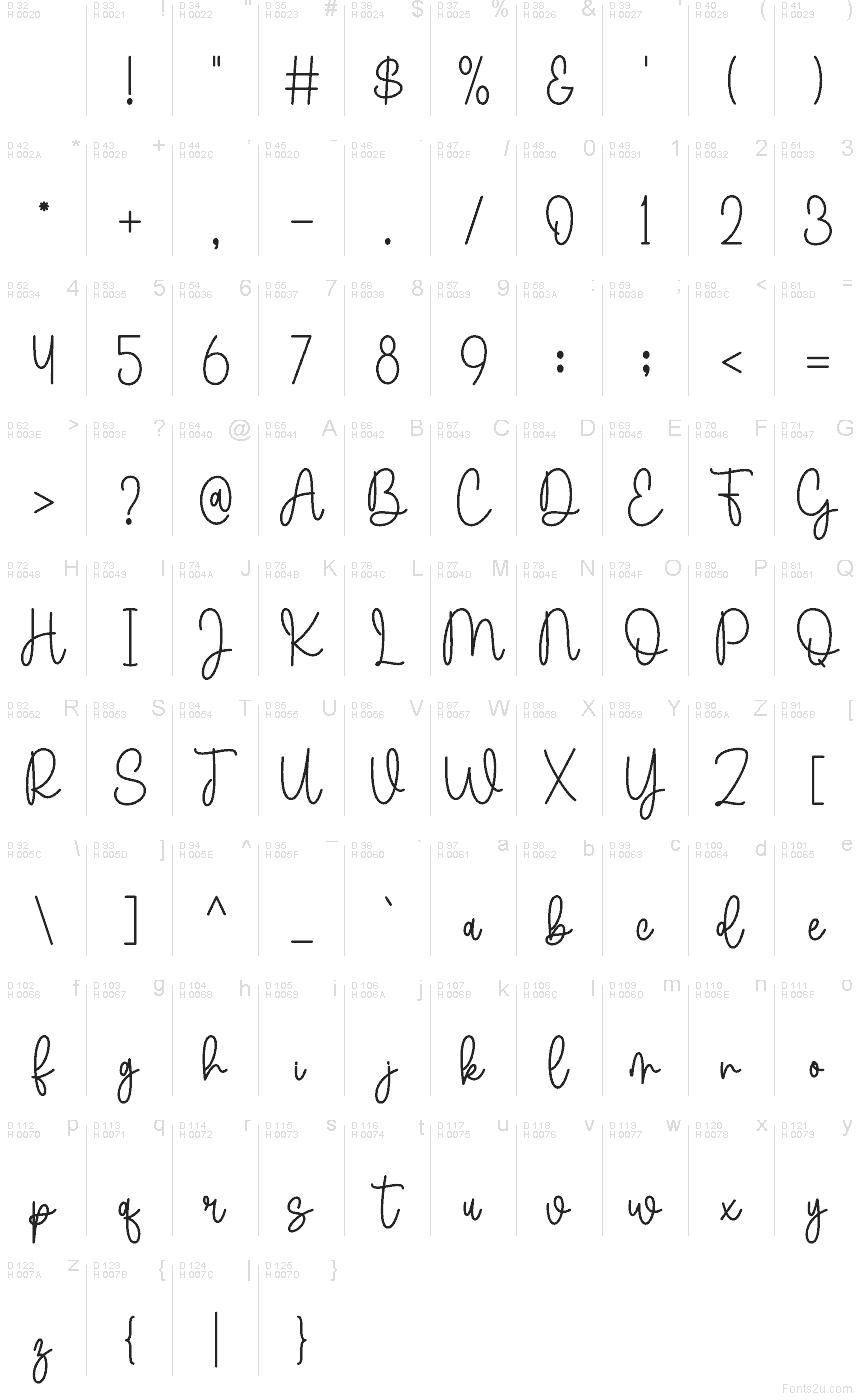
Sometimes font by Wahyu Studio is a free handwritten font that finally hits that sweet spot between casual charm and clean readability. Its smooth, slightly bouncy strokes feel like quick ink on paper, but the spacing stays open and airy, so words don’t collapse into a messy tangle. The rounded curves and gentle loops give it a friendly, human warmth without looking childish or sloppy.
Using Sometimes, your quotes, logos, and social media posts feel personal yet still professional. This free font works beautifully for branding, packaging, invitations, planners, Instagram stories, and blog graphics where you want a relaxed, approachable voice. Pair Sometimes with a simple sans serif for body text, and let this script sing in headings and short phrases at larger sizes.